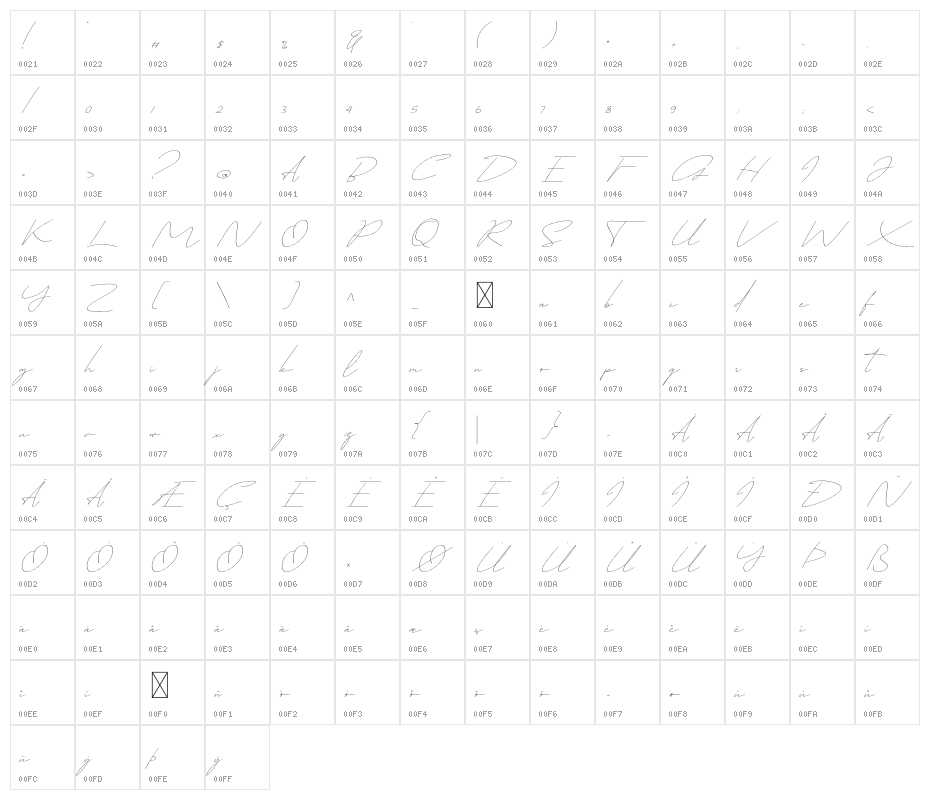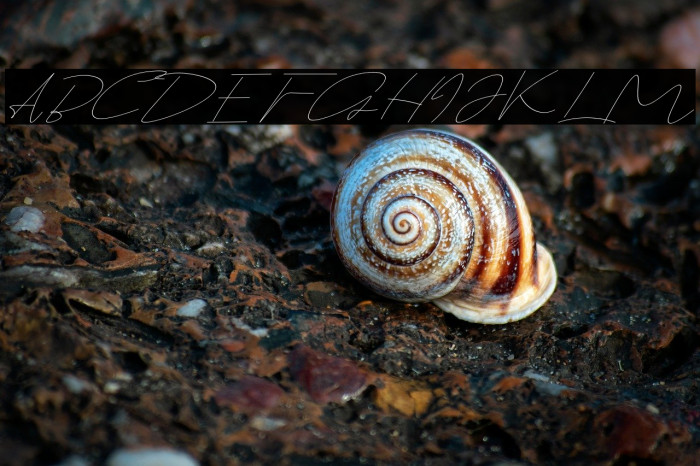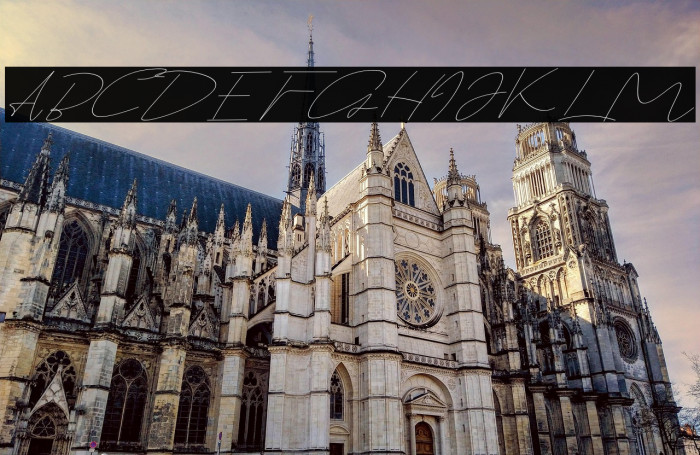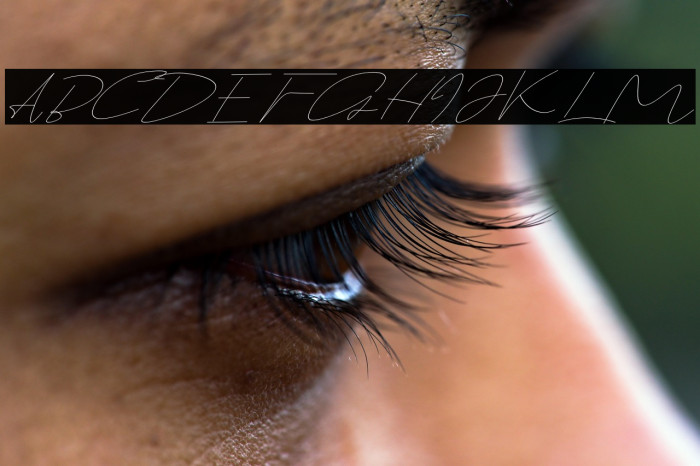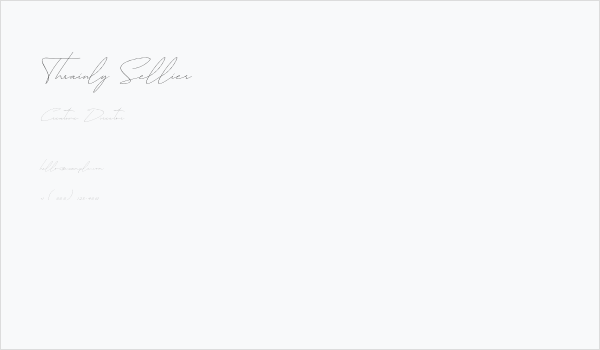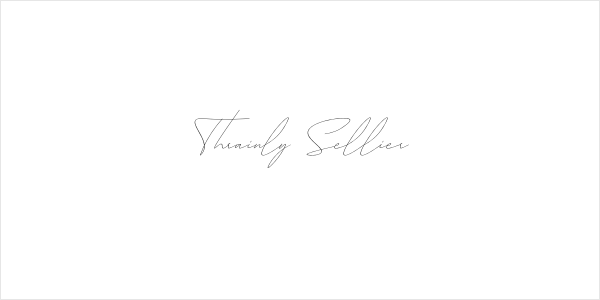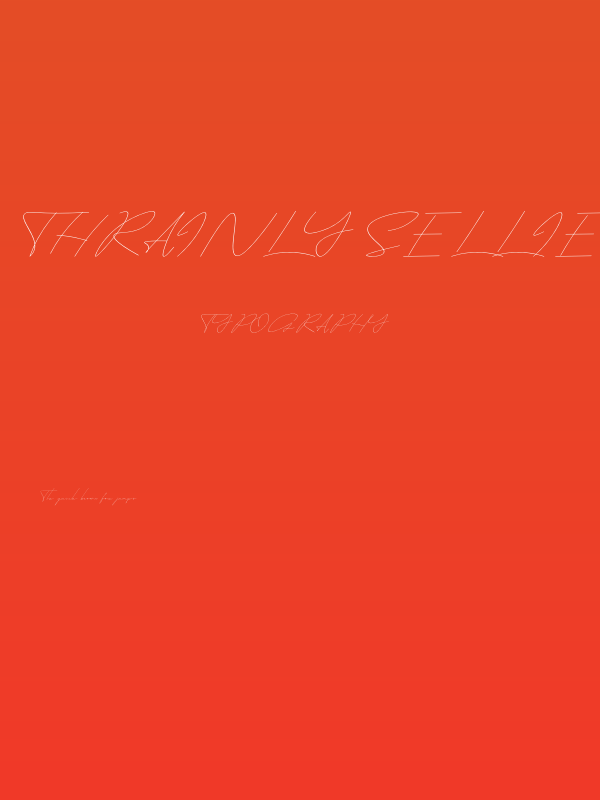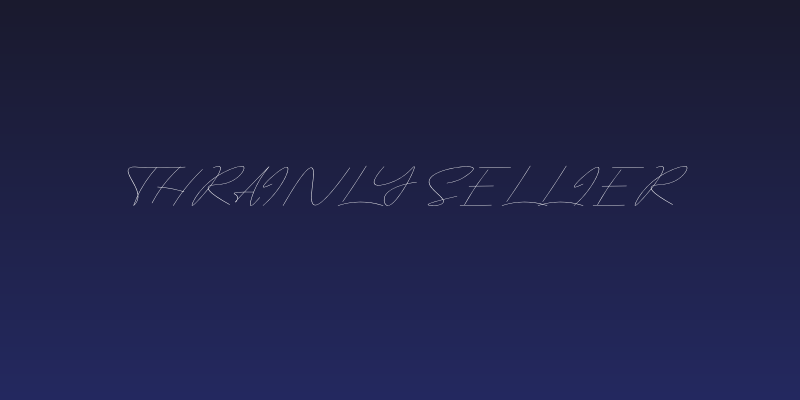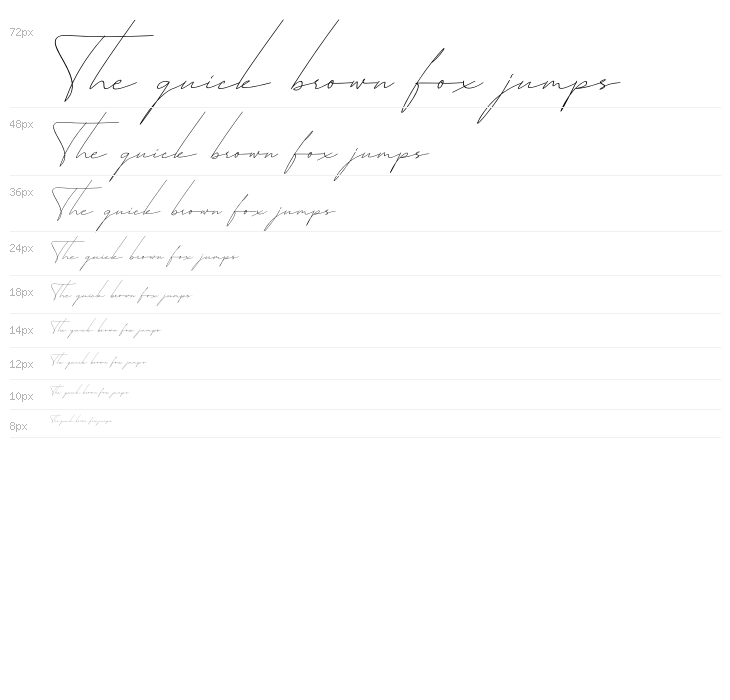
Thrainly Sellier Font
Thrainly Sellier Description
This elegant script font features a delicate and flowing style, characterized by its thin, graceful strokes and cursive letterforms. The uppercase letters exhibit a sophisticated flair with sweeping curves and loops, while the lowercase letters maintain a consistent, fluid motion that enhances readability. The numerals are simple yet harmonize well with the overall aesthetic. Special characters are thoughtfully designed to complement the script's refined appearance. This font exudes a sense of elegance and sophistication, making it ideal for formal invitations, branding, and other projects that require a touch of class.
| Overall Style | Elegant, Sophisticated |
| Use Case | Invitations, Branding, Stationery |
| Proposed Projects | Ideal for wedding invitations, luxury branding, elegant stationery, and high-end product packaging. |